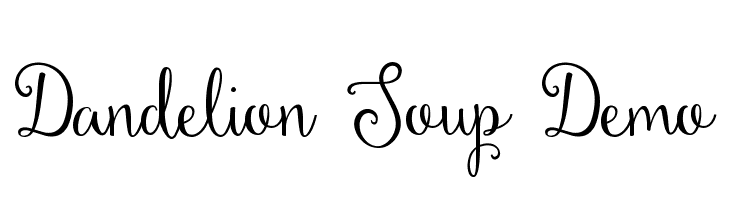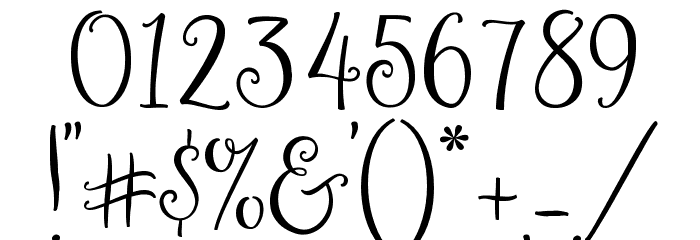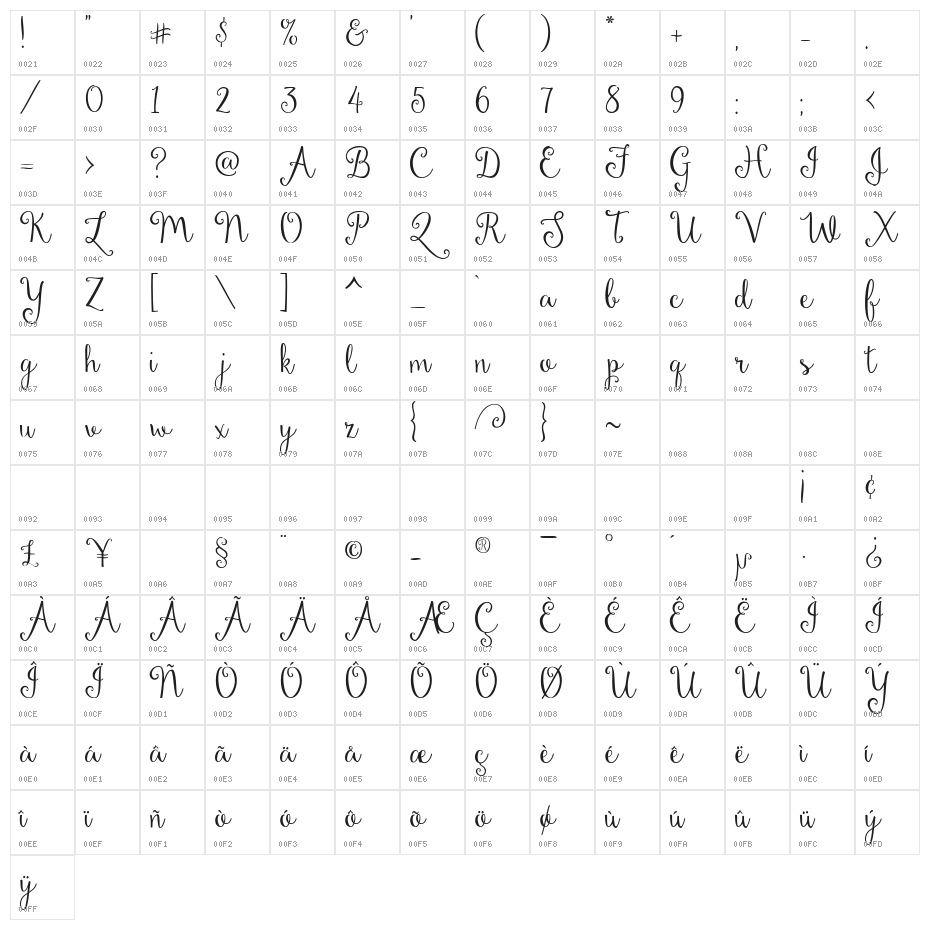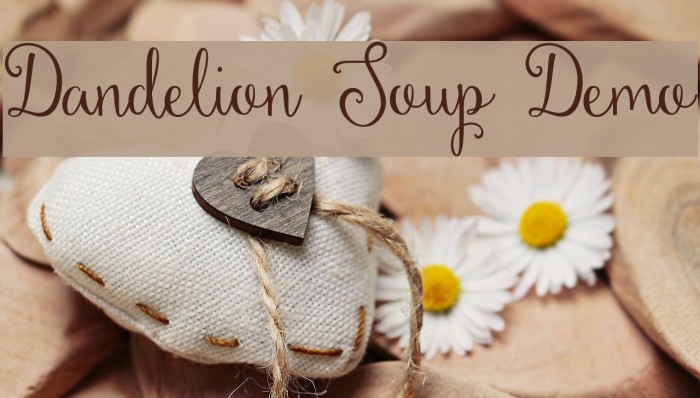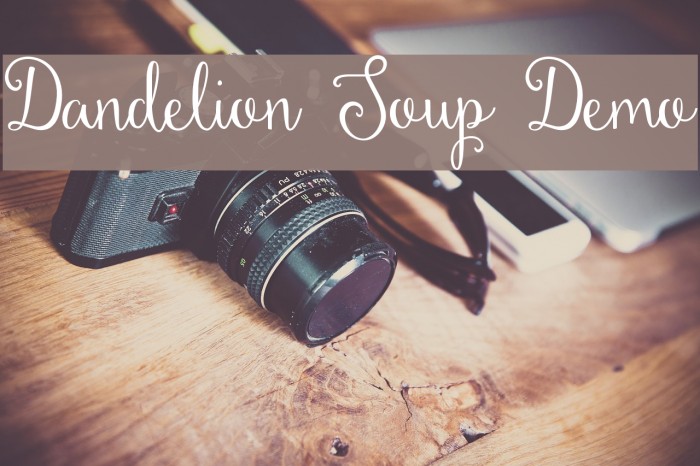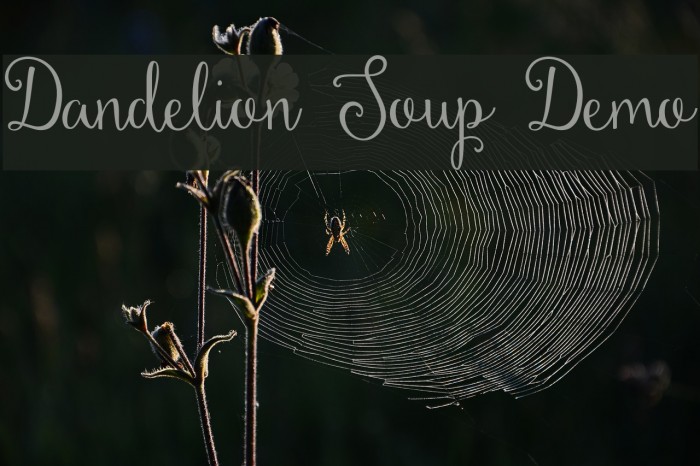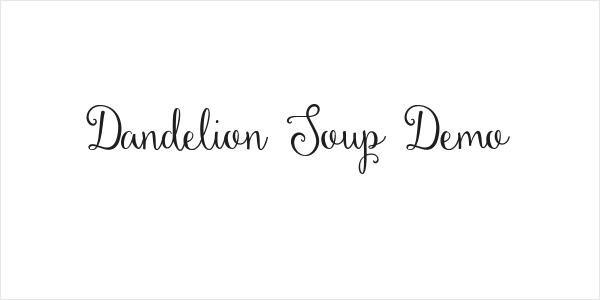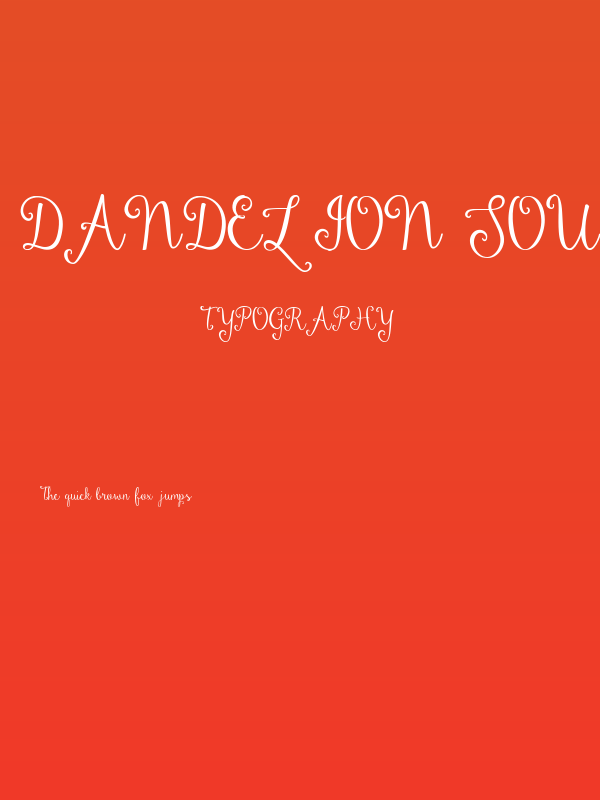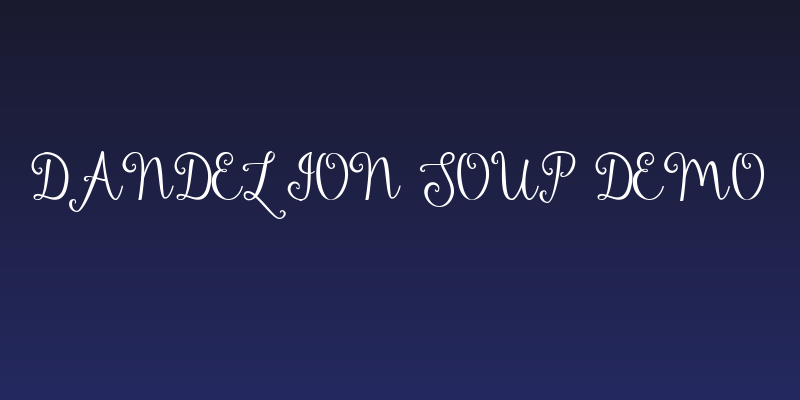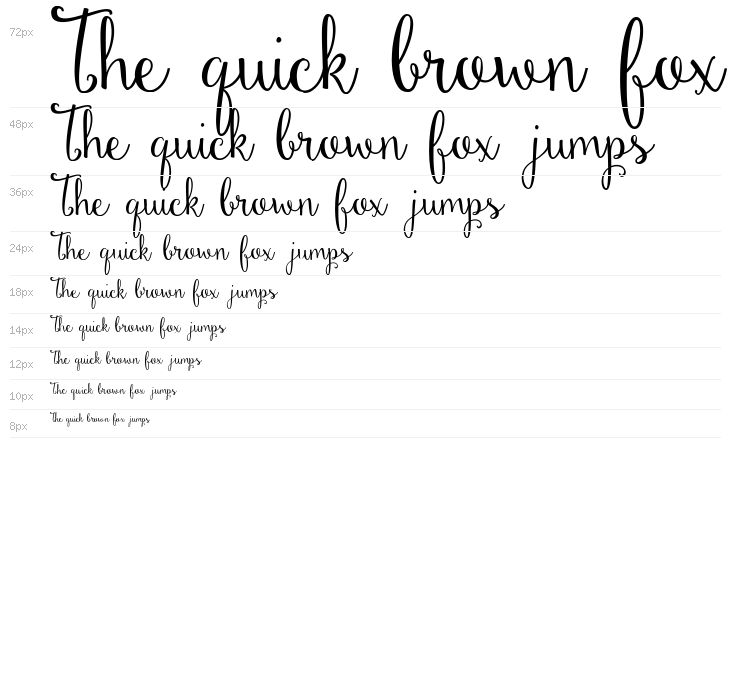
Dandelion Soup Demo Font
Dandelion Soup Demo Description
This font features a whimsical and playful script style with a handwritten touch. The uppercase letters are elegant and flowing, with distinctive loops and curls that add a sense of movement and charm. The lowercase letters maintain a consistent style, with smooth curves and a slightly informal appearance. The numerals are clear and easy to read, while the special characters complement the overall aesthetic with their decorative flair. This font is ideal for projects that require a personal and artistic touch, such as invitations, greeting cards, or branding materials.
Use CaseLogos, Headlines, Artistic projects
Proposed ProjectsIdeal for invitations, greeting cards, branding, and artistic projects.